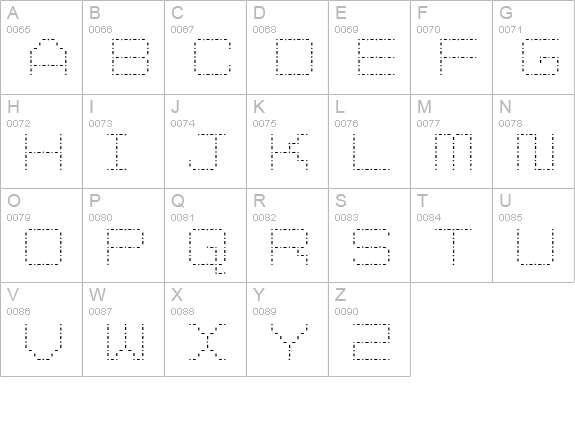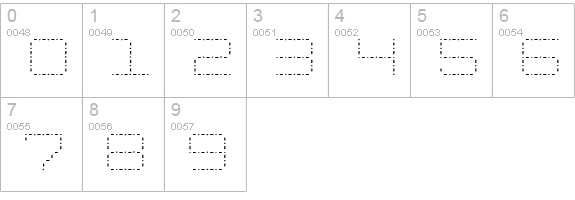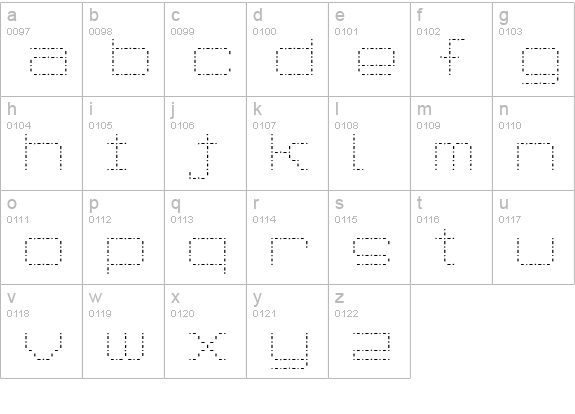
Spot Matrix is a cutting-edge and modern font that effortlessly combines sleekness with a touch of technological sophistication. Designed with precision and attention to detail, this font is perfect for projects that require a clean and minimalist aesthetic. Each character is meticulously crafted, showcasing sharp edges and distinct lines that create a sense of order and structure. With its versatile nature, Spot Matrix is suitable for a wide range of design applications. Whether you're creating a logo, designing a website, or working on a branding project, this font will add a contemporary and professional touch to your work. Its simplicity and clarity make it easily legible across different mediums, ensuring that your message is conveyed effectively. One of the most appealing aspects of Spot Matrix is its availability as a free download at FontsMarket.com. This means that designers, artists, and enthusiasts alike can access this remarkable font without any cost. FontsMarket.com is a renowned platform that offers a vast collection of high-quality fonts, and Spot Matrix is just one of the many gems that can be found there. By choosing Spot Matrix, you not only gain access to a visually striking font, but also the freedom to use it in your projects without any financial constraints. Whether you're a professional designer or a hobbyist, this font allows you to unleash your creativity and elevate your work to new heights. So why wait? Take advantage of the opportunity to download Spot Matrix for free at FontsMarket.com and elevate your designs to a whole new level of excellence.